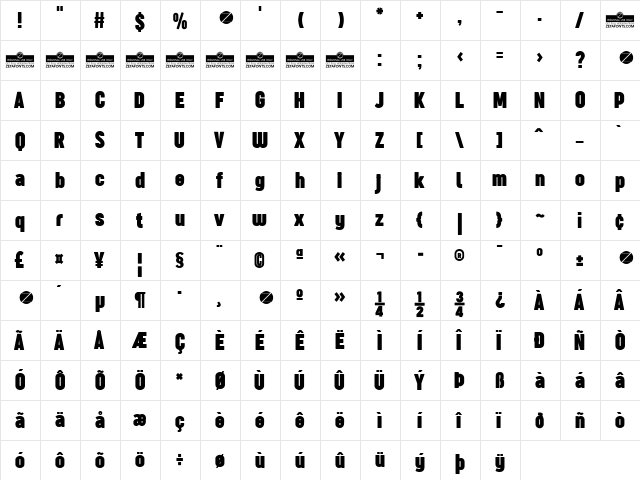
Sugo Pro Classic Trial Bold
| Foundry | Zetafonts |
| Designer | Cosimo Lorenzo Pancini |
Design Context for Sugo Pro Classic Trial Typeface
Sugo Pro Classic Trial wears its vintage influences proudly, with letterforms that recall mid-century signage, classic packaging, and nostalgia-driven design. The heavy weight commands attention and anchors typographic hierarchies.
Ideal for diner signage, record shop branding, 70s/80s-themed projects, and heritage product labels.
Font Pairing: Combine Sugo Pro Classic Trial with a simple slab or neutral sans — period-accurate companions reinforce the vintage feel without competing for attention.
Pro Tip: Lean into Sugo Pro Classic Trial's period character by pairing it with aged paper textures, muted colour palettes, and vintage illustration styles.